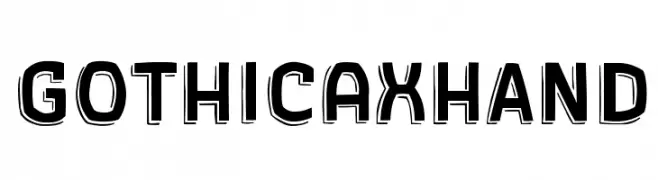
( Peter Wiegel - www.peter-wiegel.de/ )
A modern, geometric font with rounded edges and a minimalist style.
( Sahirul Iman - creativemarket.com/nami_studio )
A bold, playful font with rounded edges and a hand-drawn style.
( UrbanPixel - Michel Troy - www.urbanpixel.ca )
A bold, three-dimensional font with vintage-inspired block letters.
( Typodermic Fonts - Ray Larabie - www.typodermicfonts.com/ )
A bold, playful font with heart-shaped cutouts in each character.
( Sigit Nur Wicaksono - creativemarket.com/ogit )
A bold, futuristic font with geometric, rounded letterforms.
( Vladimir Nikolic - www.coroflot.com/vladimirnikolic )
A bold, italic serif font with a gradient texture, offering a dynamic and modern look.
( Vladimir Nikolic - www.coroflot.com/vladimirnikolic )
A bold, decorative font with a unique gradient effect and intricate detailing.
( Southype - Rodrigo Gonzalez - www.southype.com )
A modern, geometric font with an italic slant and hexagonal pattern.